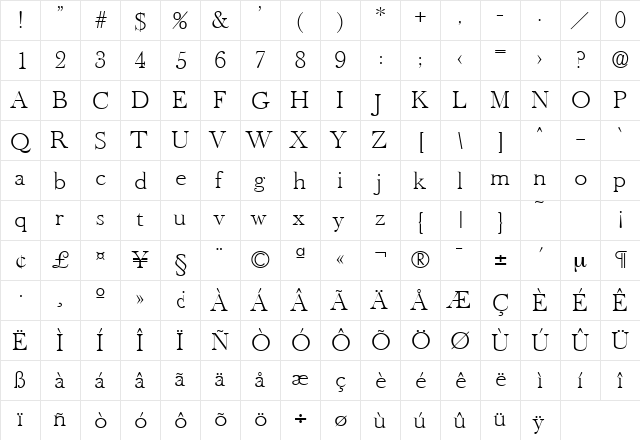
BaskervilleOld-Serial-ExtraLig ht-Regular
Design Context for BaskervilleOld-Serial-ExtraLig Typeface
BaskervilleOld-Serial-ExtraLig offers clean, dependable letterforms without strong stylistic allegiance, making it a practical choice for designers who need flexibility.
Pro Tip: Use BaskervilleOld-Serial-ExtraLig in both headline and body roles to test its range before committing to a single application.